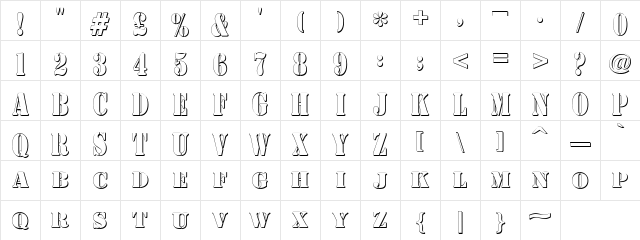
AustralianFlyingCorpsStencilSh borrows the utilitarian aesthetic of stencil lettering, with its characteristic cutaways and no-frills construction lending an industrial edge.
Pro Tip: Use AustralianFlyingCorpsStencilSh at large sizes on packaging, posters, or apparel where the stencil cutaways read clearly. Avoid small sizes where those gaps become visual noise.